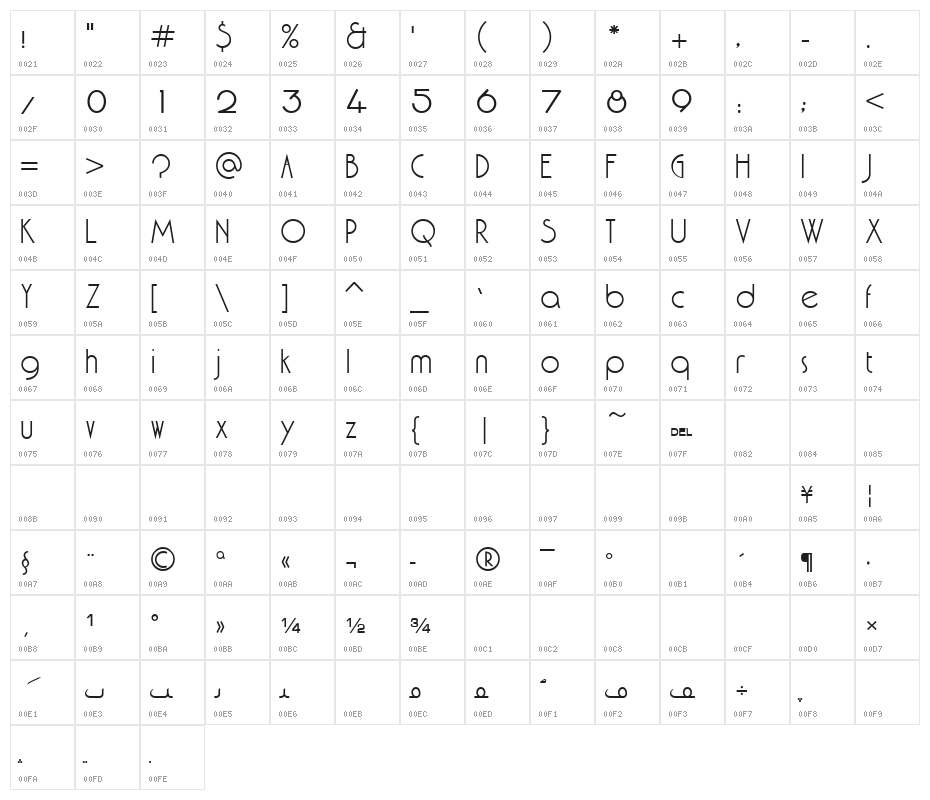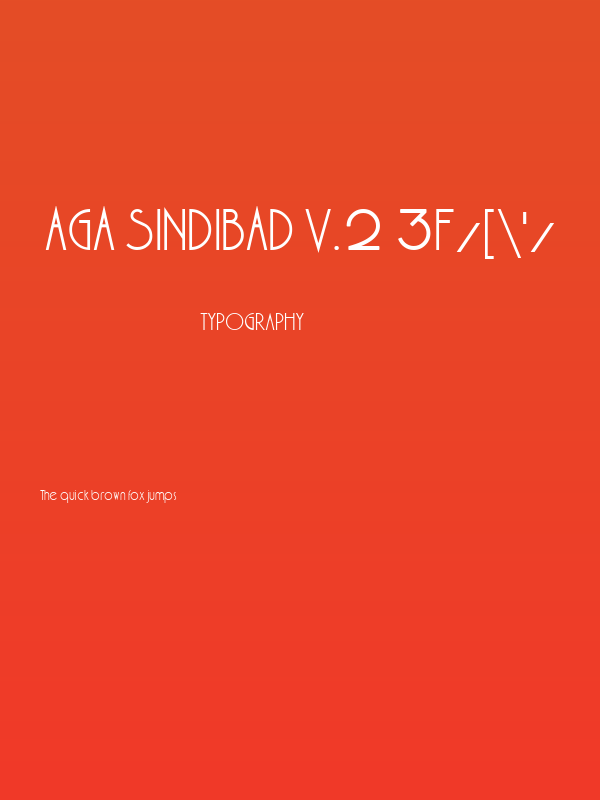
AGA Sindibad V.2 3F/['/ Font
AGA Sindibad V.2 3F/['/ Description
This font features a sleek and modern design with clean lines and geometric shapes. The uppercase letters are tall and narrow, giving a sophisticated and elegant appearance. The lowercase letters maintain a consistent style, with rounded edges that add a touch of softness to the overall look. The numerals are well-proportioned and align perfectly with the letterforms, ensuring readability and balance. Special characters are designed with the same attention to detail, making this font versatile for various applications. The uniform stroke width throughout the characters provides a harmonious and cohesive visual experience.
| Proposed Projects | Ideal for branding, editorial design, advertising, and digital media projects. |